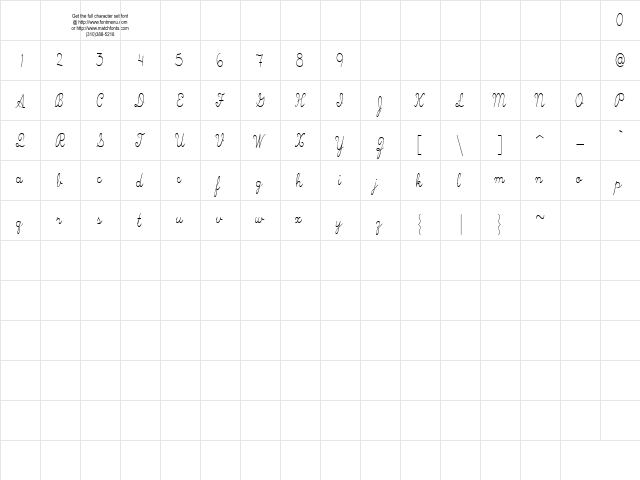
Skryptaag Tryout Regular
Design Context for Skryptaag Tryout Typeface
Skryptaag Tryout is a composed and adaptable typeface that performs quietly and consistently across a wide range of design contexts.